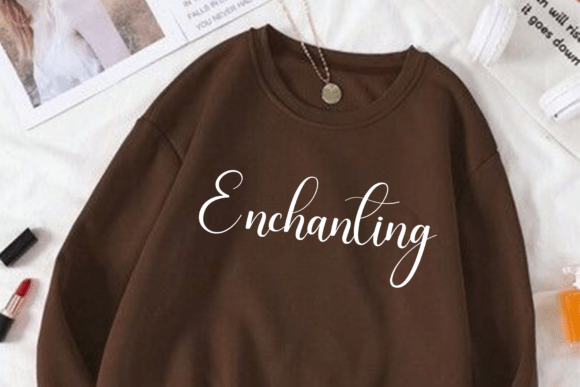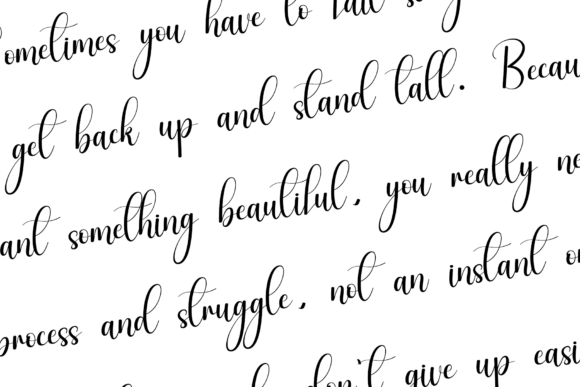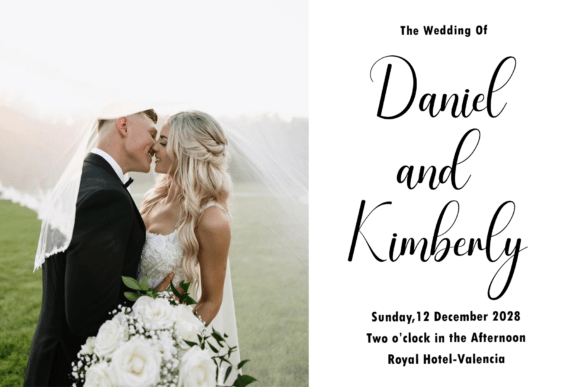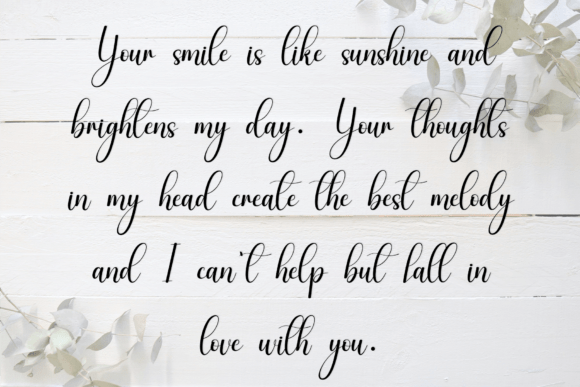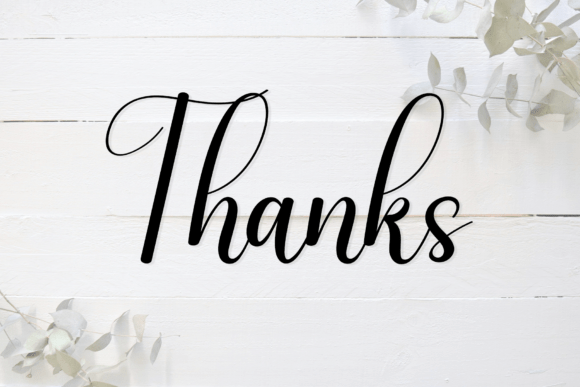
The Elegant Touch: Unlocking the Power of Brethany Font
Have you ever found yourself captivated by a handwritten signature, mesmerized by the fluid motion and delicate balance of the letters? That’s the magic of Brethany Font, a “new style” handwritten script font that embodies modern elegance and sophistication. This stunning font is designed to bring an air of luxury and refinement to any visual project, from high-end editorial content to wedding stationery and signature logos.
For designers, Brethany Font offers a unique opportunity to add a touch of class and personality to their work. Its delicate balance of tall ascenders and sweeping loops creates a rhythmic and sophisticated visual flow that’s sure to impress. Whether you’re working on a luxury brand or a high-end editorial project, Brethany Font is the perfect tool to elevate your design and leave a lasting impression.
Brethany Font Key Features
- Font Family: Brethany is a script font, ideal for creative and elegant designs.
- Character Set: The font includes a wide range of characters, including uppercase and lowercase letters, numbers, and punctuation marks.
- Unique Characteristics: Brethany Font features a unique, flowing script style with subtle connections between letters, giving it a hand-written feel.
Brethany Font Review
As a designer, I’ve had the chance to work with Brethany Font, and I must say it’s a unique and interesting choice. ✨ The font’s script-like features and elegant feel make it perfect for creating a sense of sophistication and refinement in your designs. It’s ideal for wedding invitations, luxury branding, and other high-end projects.
- What works well:
- ✨ Elegant and refined feel
- ✨ Perfect for script-like and high-end designs
- ✨ Supports a wide range of languages
- Limitations:
- ⚠️ Limited font weights and styles
- ⚠️ May not be suitable for body text due to its ornate nature
- ⚠️ Can be challenging to read at smaller font sizes
Overall, I think Brethany Font is a great addition to any designer’s toolkit, but it’s essential to use it judiciously and in the right context. With its unique features and elegant feel, it can elevate your designs to a new level. However, its limitations should not be overlooked, and you should be aware of its potential drawbacks before using it in your projects.
Brethany Font is suitable for various design projects, including:
- Branding and logos.
- Print materials, such as business cards and brochures.
- Digital designs, such as social media graphics and presentations.
Alternatives to Brethany Font for Designers
Great Vibes Font is a beautiful, handwritten script font. It is perfect for use in designs that require a touch of elegance and sophistication, such as wedding invitations, greeting cards, and upscale branding materials.
Compared to Brethany Font, Great Vibes Font has a more refined and polished look, making it suitable for high-end designs. Brethany Font, on the other hand, has a more playful and casual feel.
Carolyna Pro Font is a modern, elegant script font that is ideal for use in designs that require a touch of luxury and sophistication, such as high-end branding materials, magazines, and fashion designs.
Compared to Brethany Font, Carolyna Pro Font has a more refined and sophisticated look, making it suitable for high-end designs. Brethany Font, on the other hand, has a more playful and casual feel.
Alex Brush Font is a elegant, handwritten script font that is perfect for use in designs that require a touch of warmth and sophistication, such as wedding invitations, greeting cards, and upscale branding materials.
What is the font size range and line height for optimal readability?
For optimal readability, we recommend using the Brethany Font at a size range of 12-24 points, with a line height of at least 1.2-1.5 times the font size. This will ensure that the text is clear and easy to read, while also maintaining the elegant feel of the font.